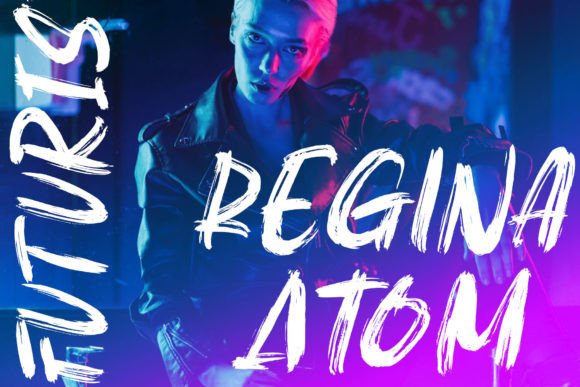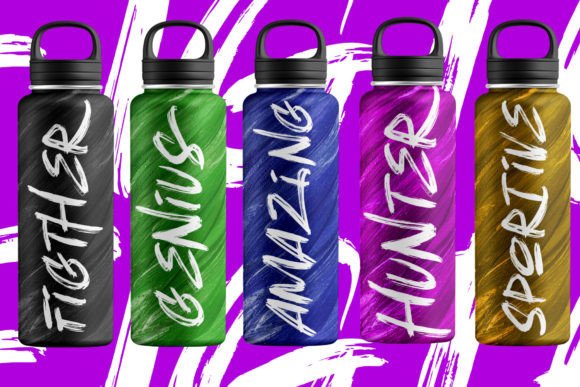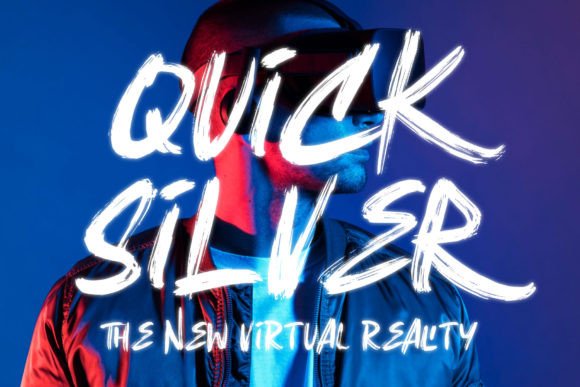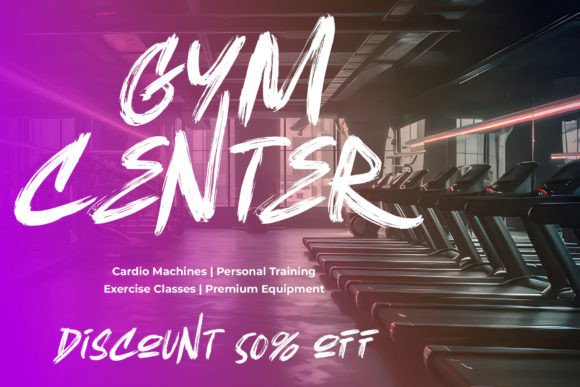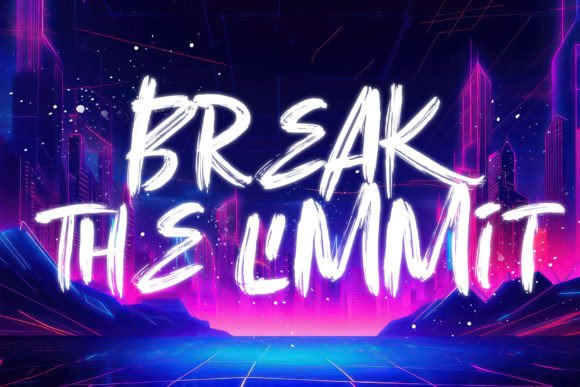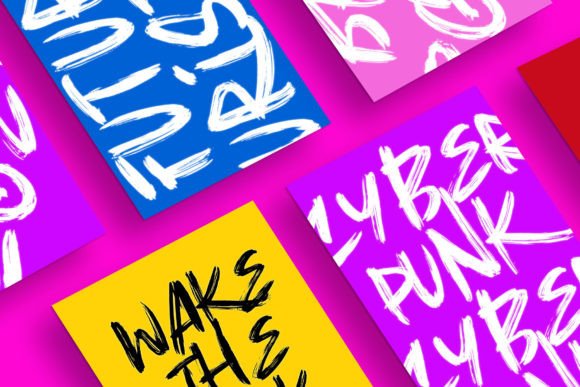
Earth Theory Font: The Perfect Choice for Creative Endeavors with a Retro Touch
In the world of design, fonts play a crucial role in conveying the message and aesthetic of a project. For designers and crafters looking for a unique and stylish font to add a retro touch to their work, Earth Theory Font is an excellent choice. This street brush font is designed with perfect detail strokes, making it a versatile and chic option for various creative endeavors.
What is Earth Theory Font?
Earth Theory Font is a street brush font that boasts a distinctive retro style. Its perfect detail strokes give it a unique charm that can instantly elevate any design project. Whether you’re working on a logo, advertisement, watermark, or branding project, Earth Theory Font is the perfect choice for adding a touch of sophistication and elegance.
Key Features of Earth Theory Font
- Street Brush Font: Earth Theory Font has a street brush font style that gives it a unique and stylish look.
- Perfect Detail Strokes: The font features perfect detail strokes that add to its charm and versatility.
- Retro Touch: Earth Theory Font has a distinctive retro style that can add a touch of nostalgia and elegance to any design project.
- Chic and Lifestyle Design: The font is perfect for chic and lifestyle designs, including logos, advertisements, watermarks, and branding projects.
Use Cases for Earth Theory Font
Earth Theory Font is a versatile font that can be used for a wide range of design projects. Here are some of the most popular use cases:
- Logos: Earth Theory Font is perfect for creating unique and stylish logos that make a lasting impression.
- Advertisements: The font can be used to create eye-catching advertisements that grab the attention of your target audience.
- Watermarks: Earth Theory Font can be used to create elegant watermarks that add a touch of sophistication to your photography and design projects.
- Stationery: The font is perfect for creating stylish stationery, including business cards, letterheads, and envelopes.
- Branding Projects: Earth Theory Font can be used for branding projects, including product design, labels, and business projects.
- Display and Magazine: The font can be used for display and magazine designs, including headlines, titles, and captions.
- Invitations: Earth Theory Font is perfect for creating stylish and elegant invitations for special occasions.
Why Choose Earth Theory Font?
There are several reasons why Earth Theory Font is a popular choice among designers and crafters:
- Unique Style: The font has a unique and stylish look that sets it apart from other fonts.
- Versatility: Earth Theory Font can be used for a wide range of design projects, from logos and advertisements to watermarks and branding projects.
- Retro Touch: The font’s retro style can add a touch of nostalgia and elegance to any design project.
- Easy to Read: Earth Theory Font is easy to read, making it perfect for body text and captions.
Earth Theory Font is a versatile and stylish font that is perfect for designers and crafters looking to add a retro touch to their work. With its perfect detail strokes and street brush font style, it’s an excellent choice for a wide range of design projects, from logos and advertisements to watermarks and branding projects. Whether you’re working on a creative endeavor or a business project, Earth Theory Font is a great option to consider.